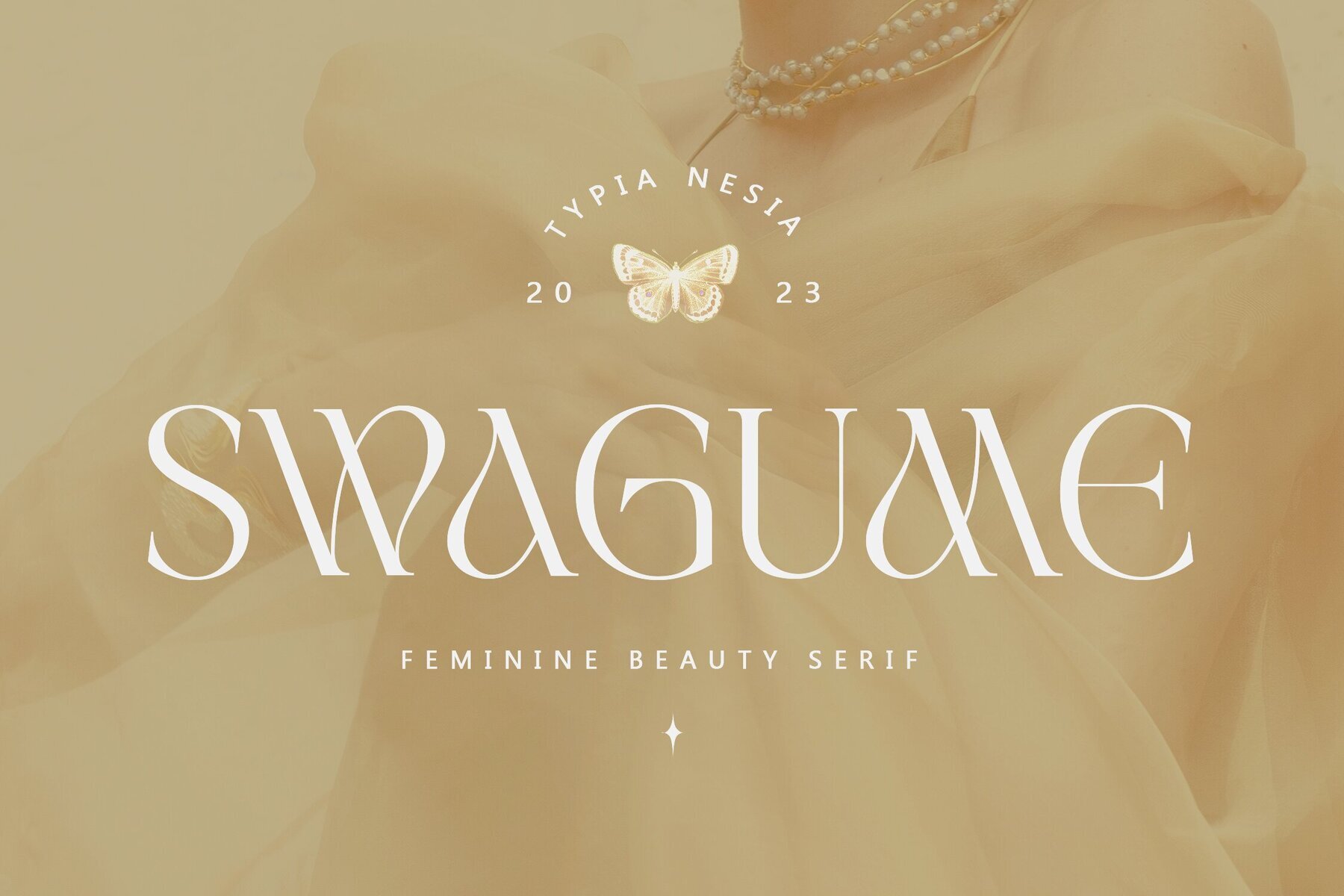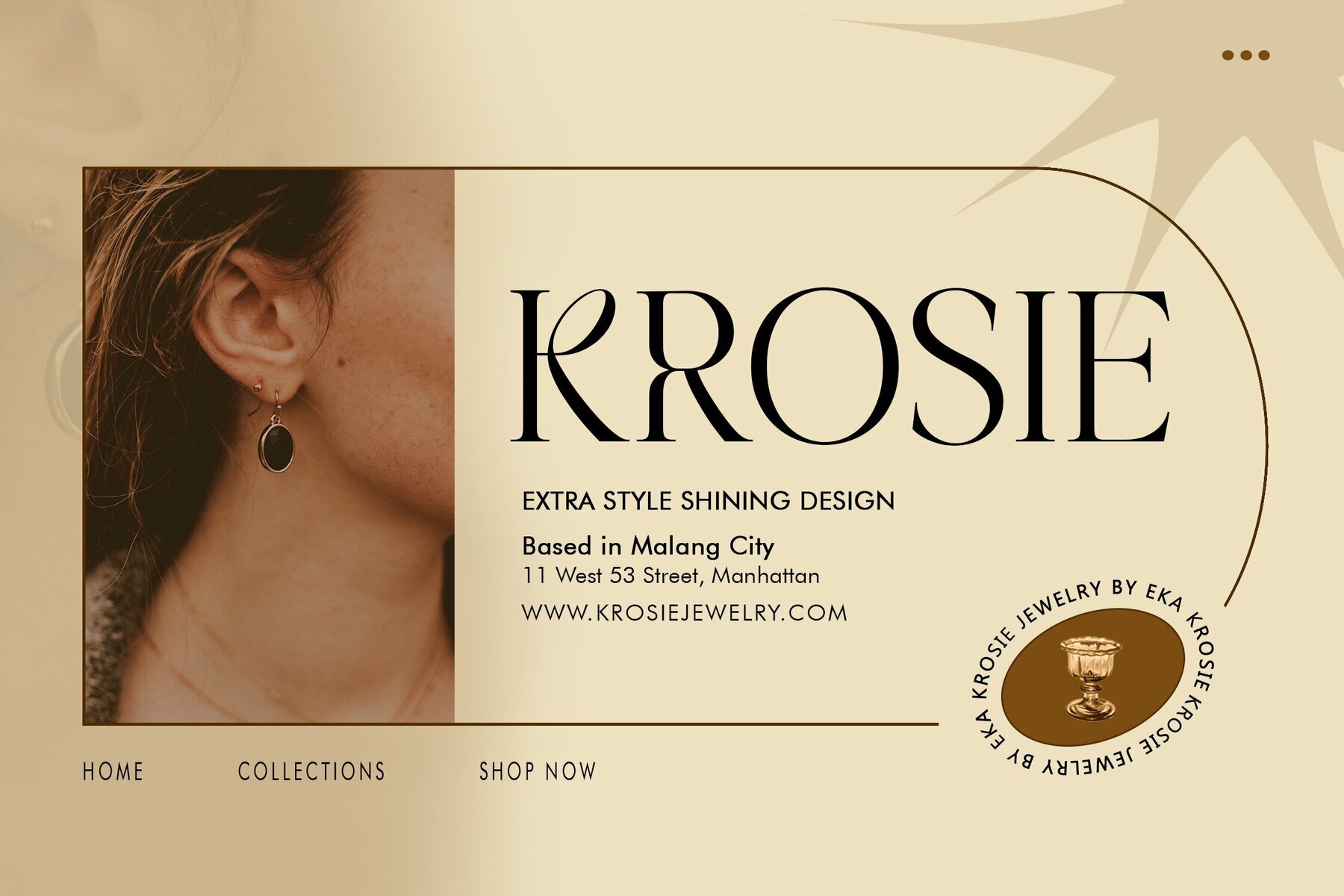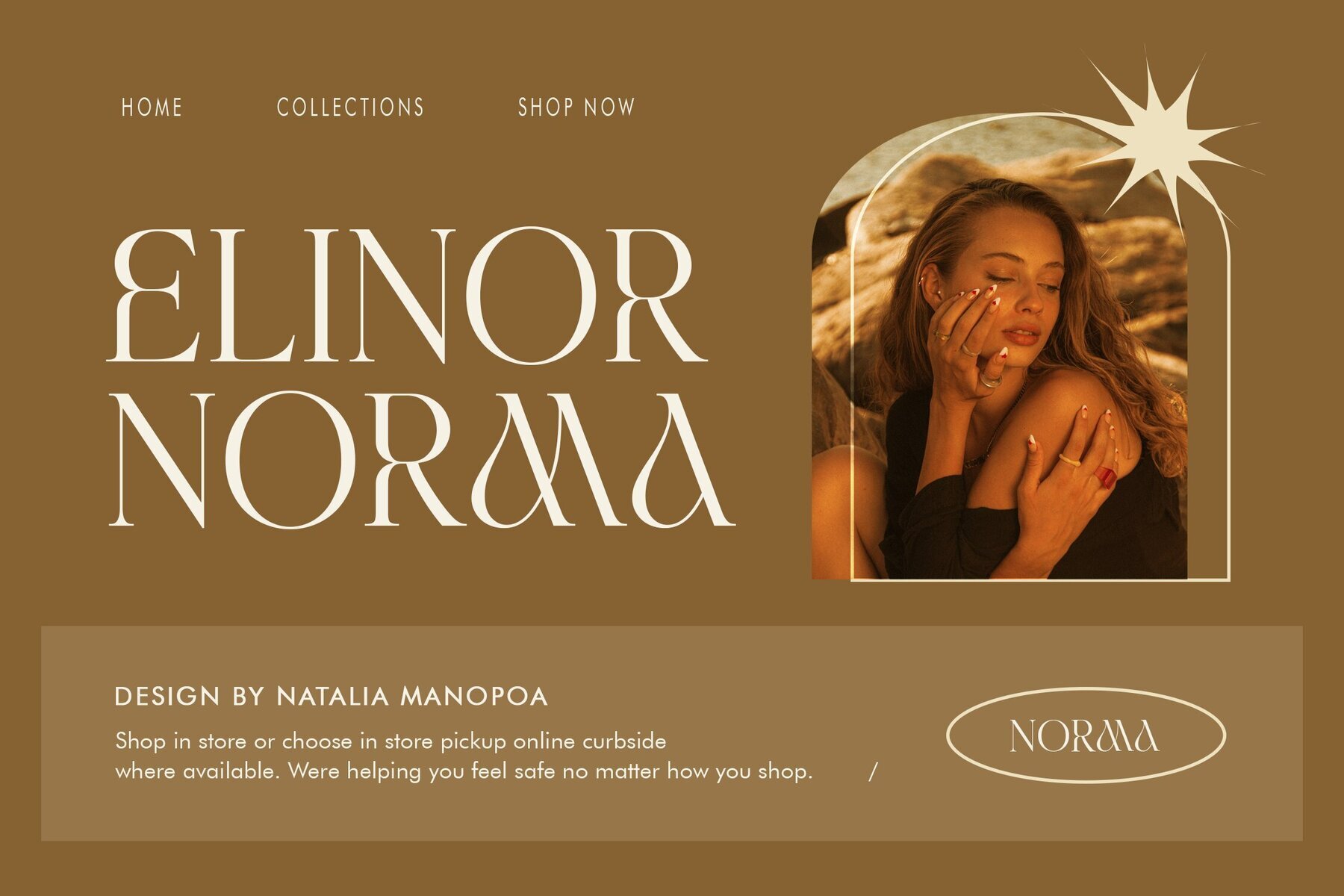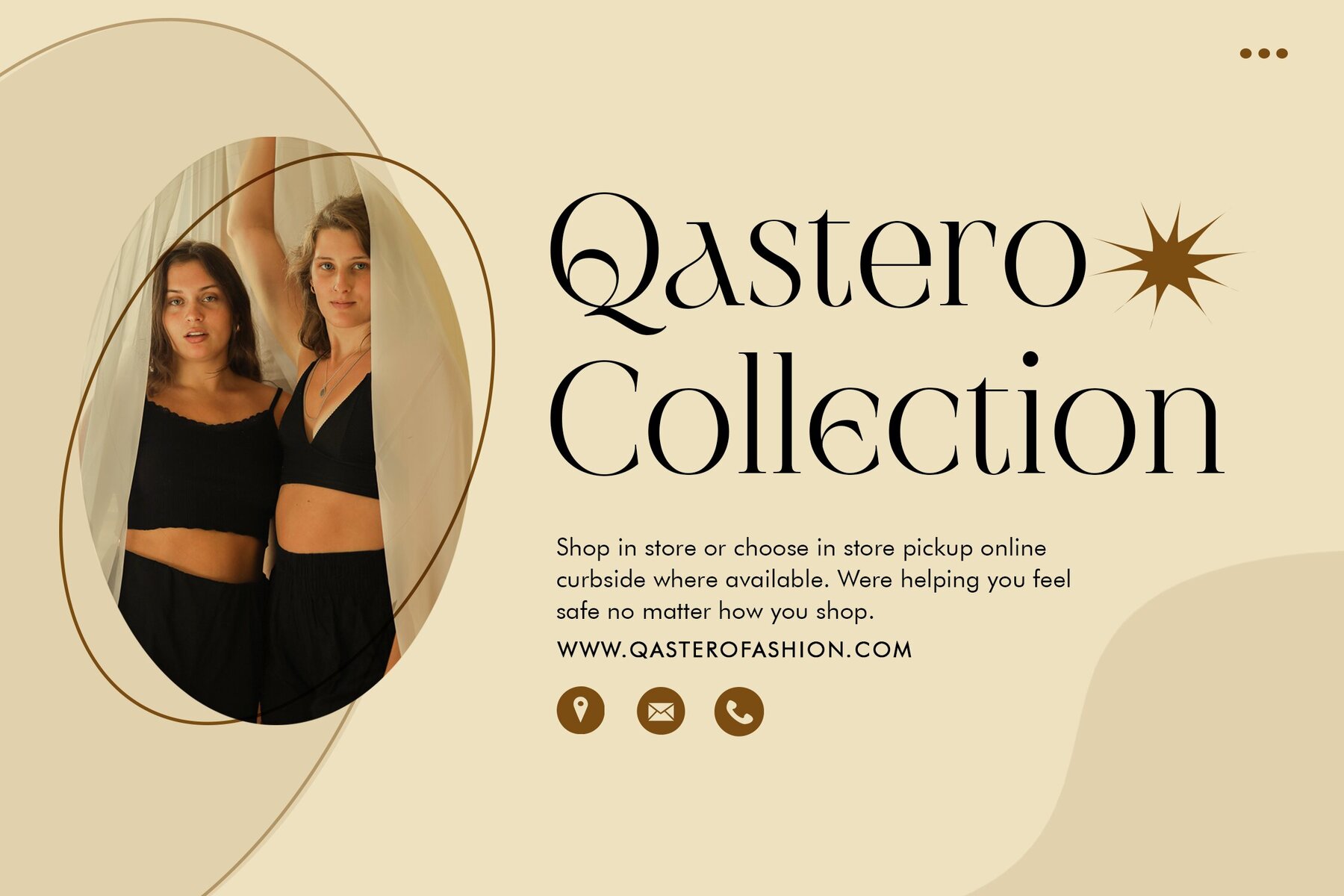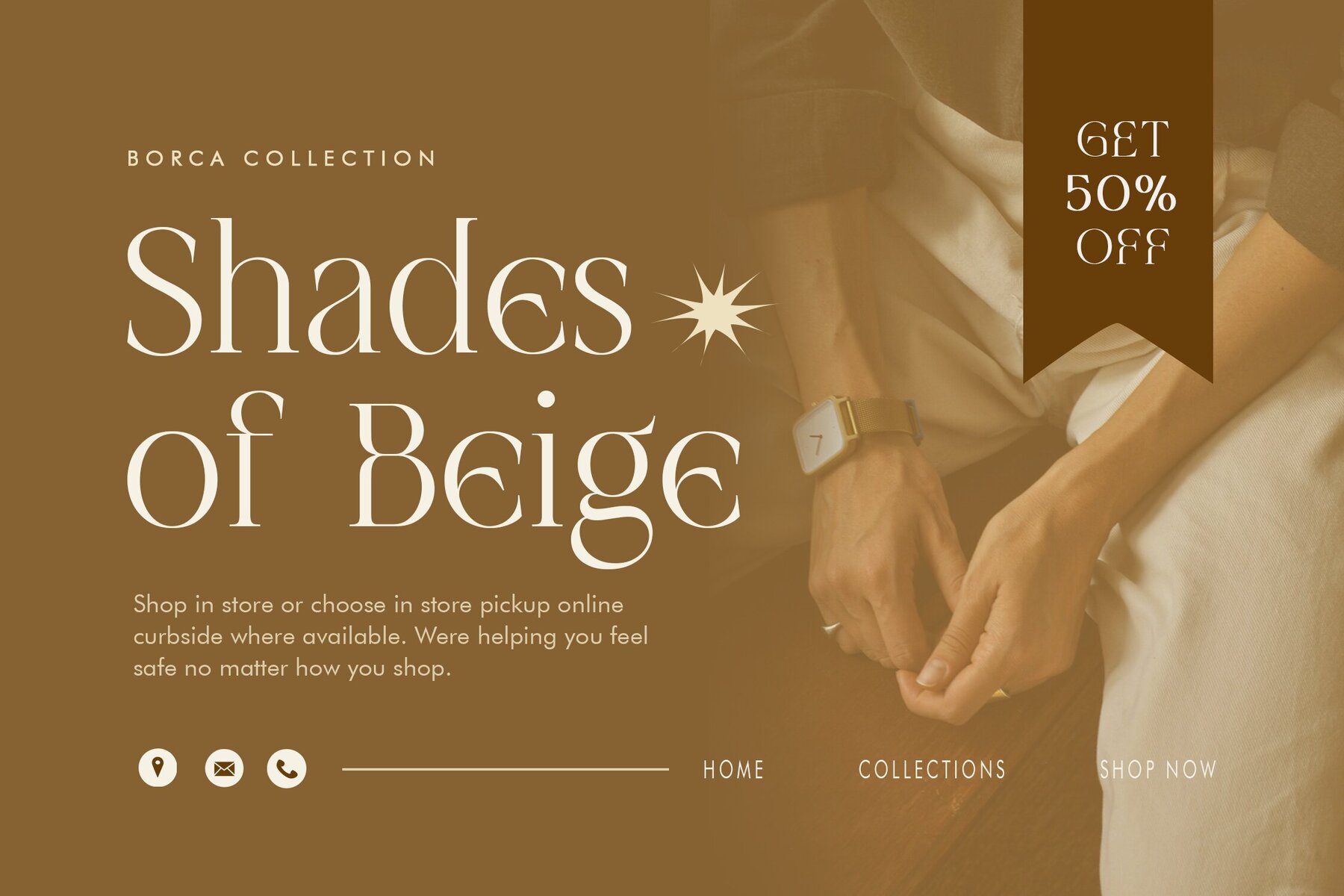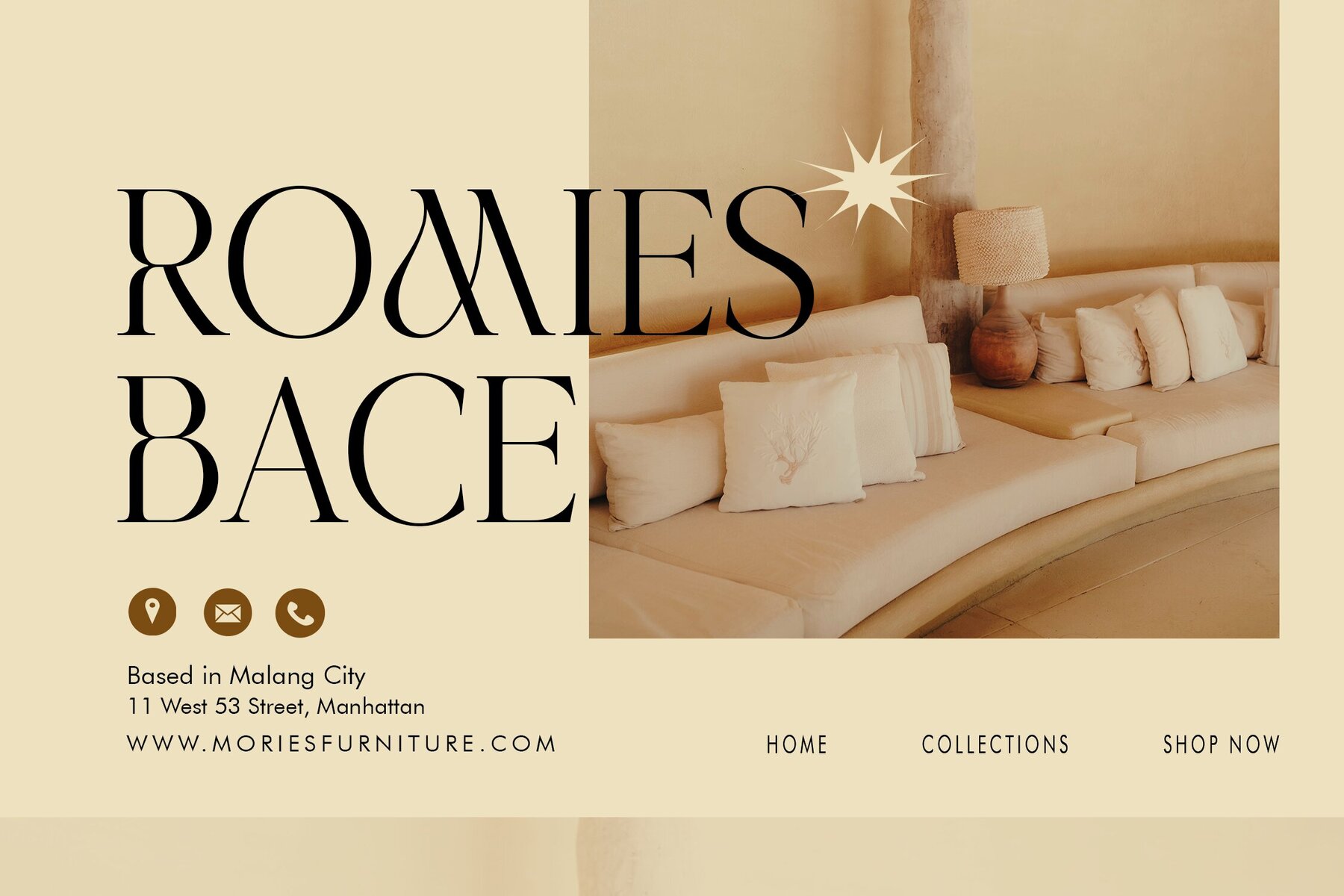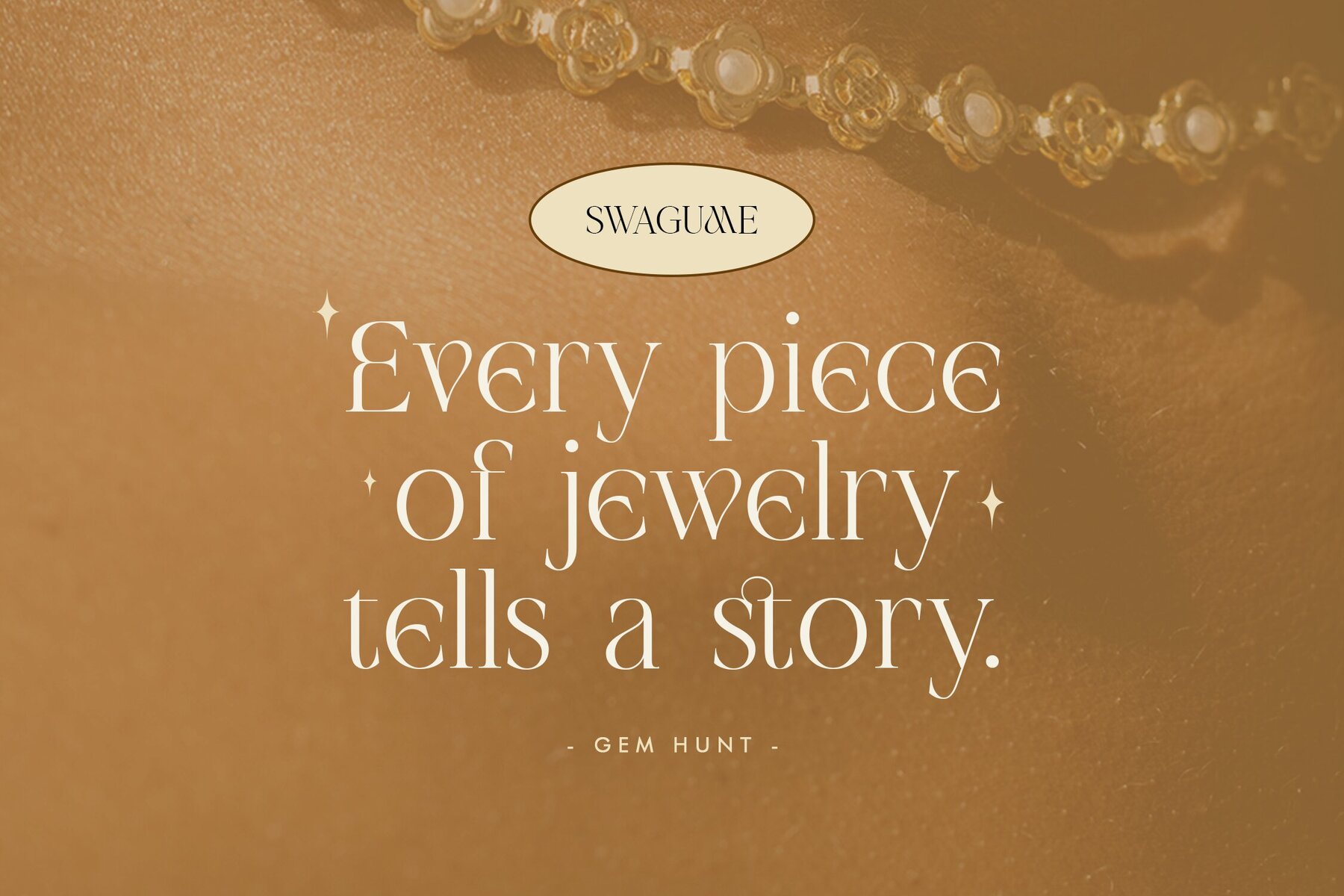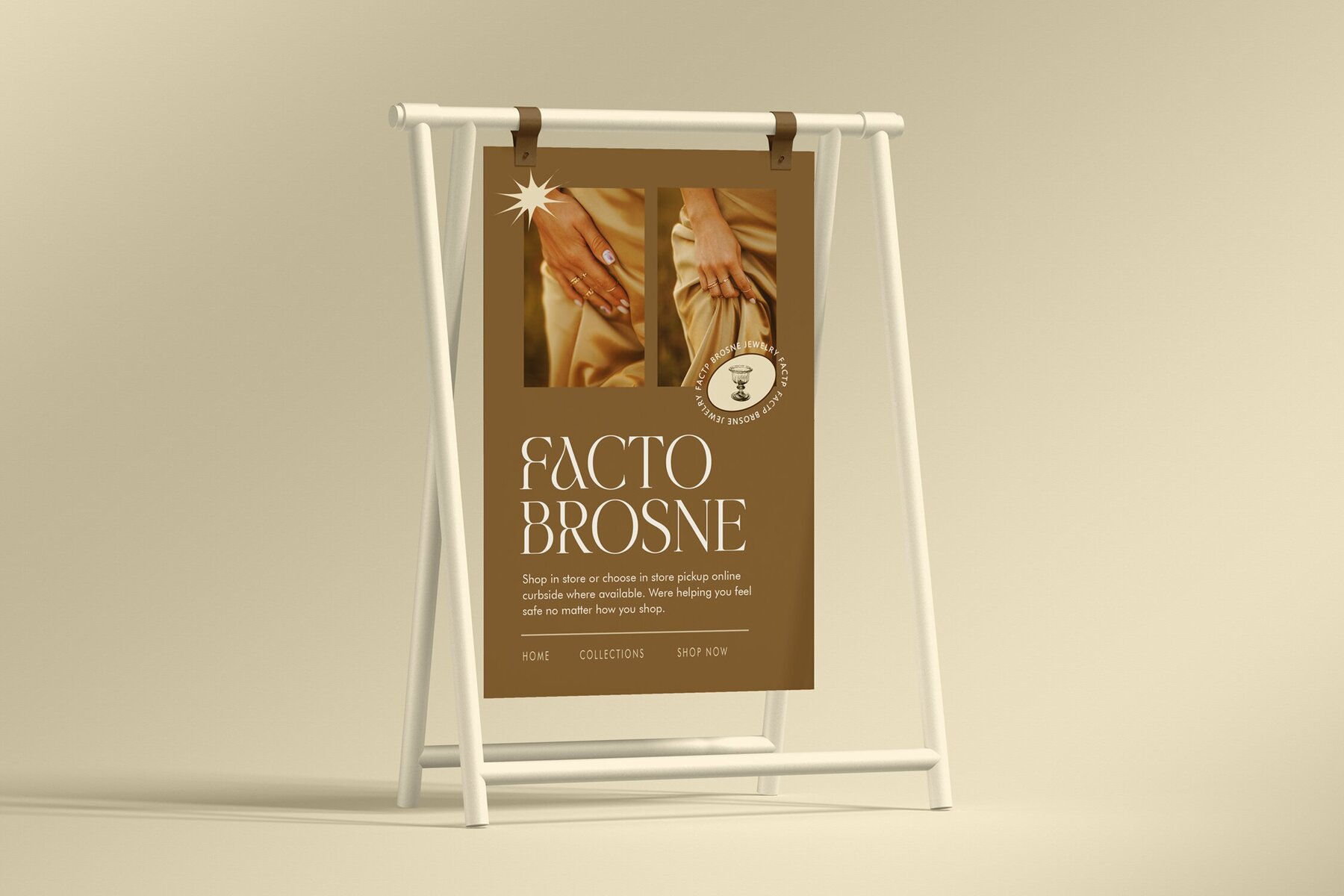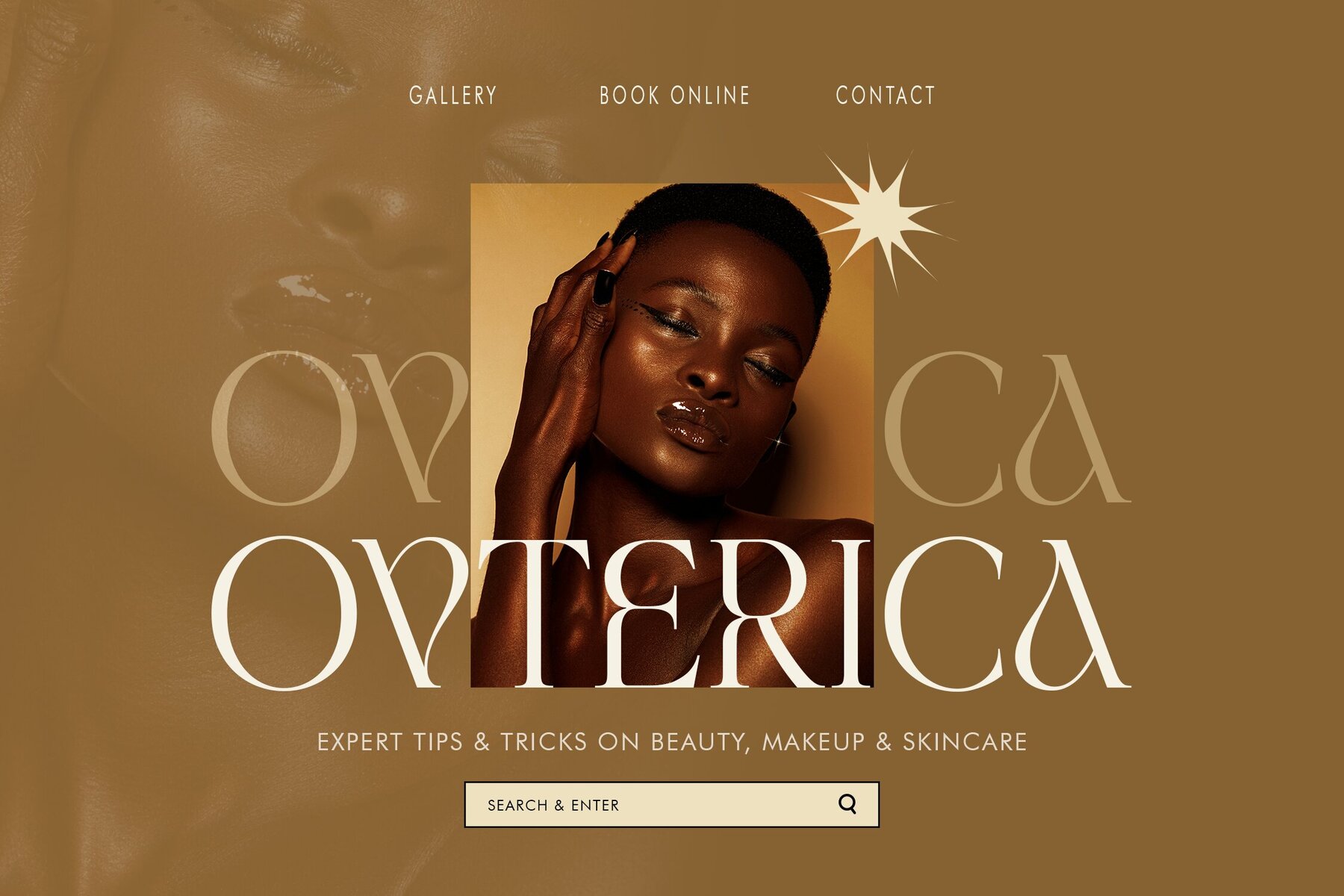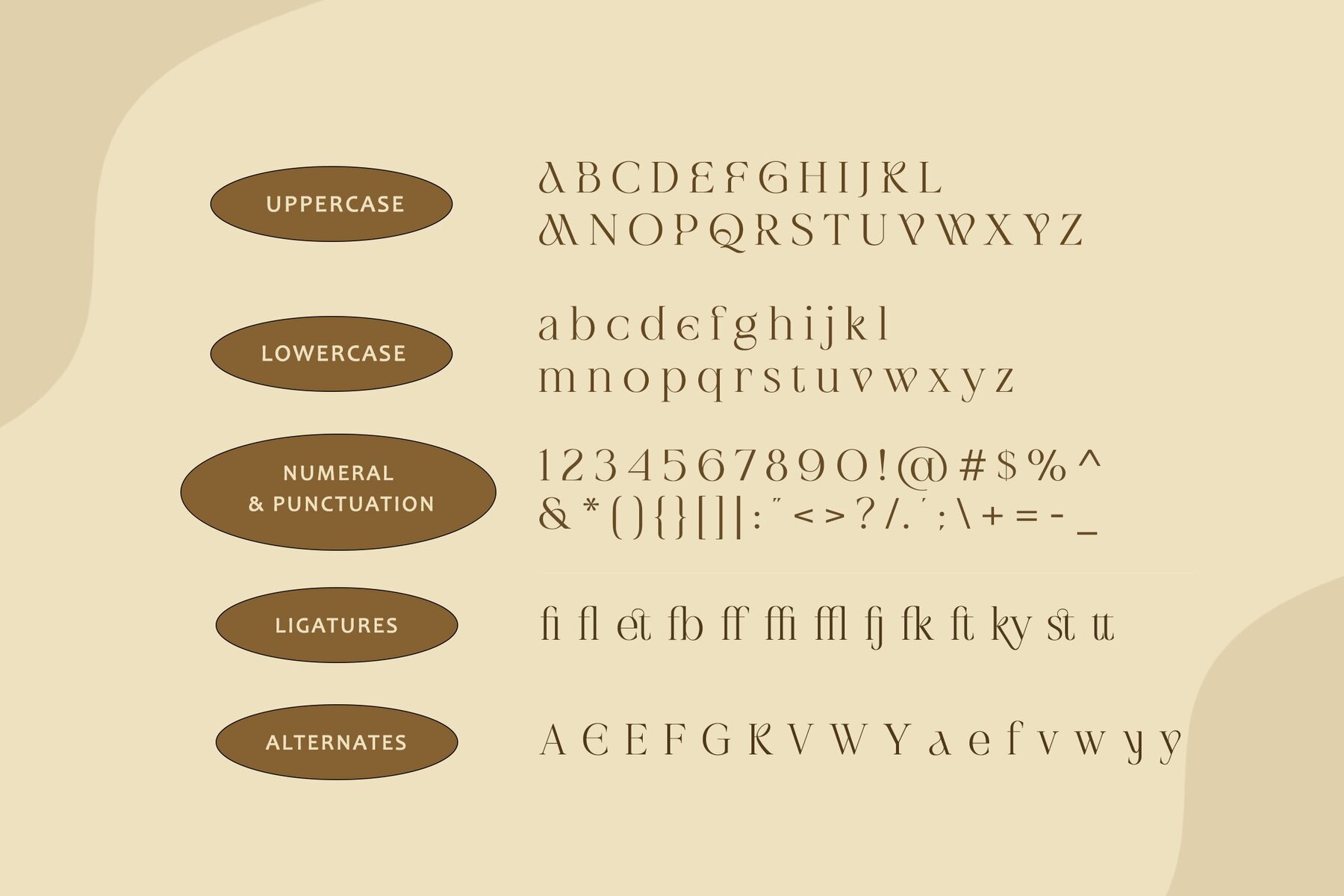
Swagume Font
Swagume Regular
Swagume, an embodiment of femininity, beauty, and serif elegance, presents a harmonious blend of uppercase and lowercase letters, numerals, a wide range of punctuation marks, alluring ligatures, and alternates. Tailored for various applications seeking an aura of grace and sophistication, it is an ideal choice for beauty and fashion branding, editorial contexts, and luxury products. This font's standout feature lies in its meticulously crafted ligatures and alternates, elevating the visual narrative of any project it's applied to. Swagume's expertise shines through the delicate strokes and graceful curves, striking a perfect balance between modernity and timeless allure, defining a unique typographic style that exudes refined charm and grace.